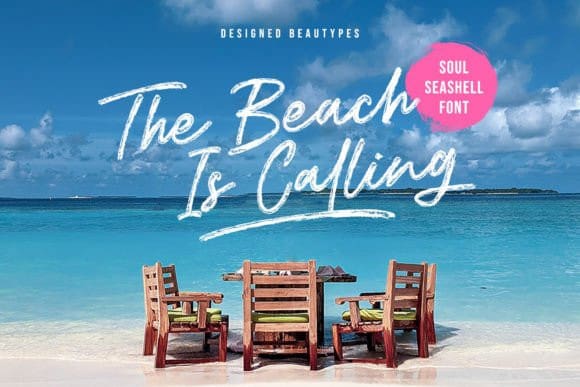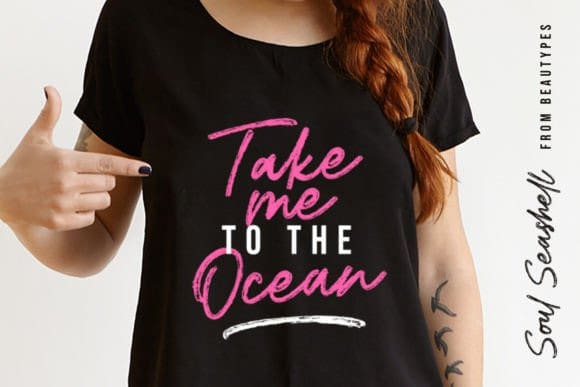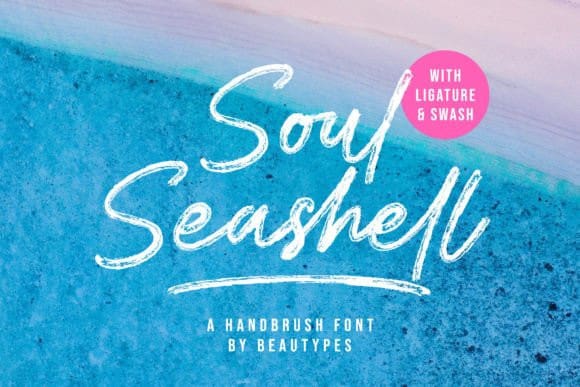
Soul Seashell Font
Soul Seashell Font is a handwritten brush script font with a strong charm, quick dry strokes and a signature style. Friendly and organic, SoulSeashell is perfect for branding projects, summer designs, product packaging – or simply as a stylish text overlay to any background image.